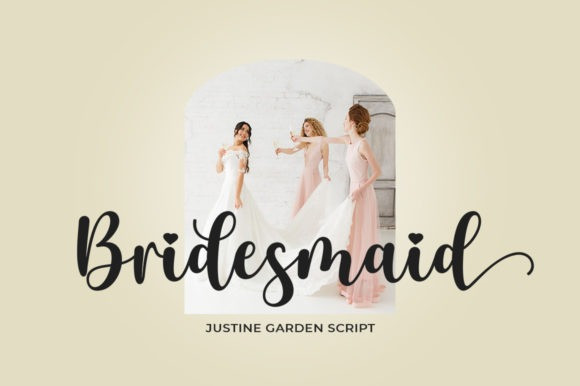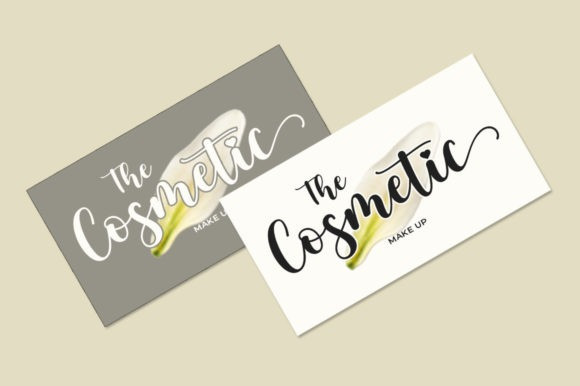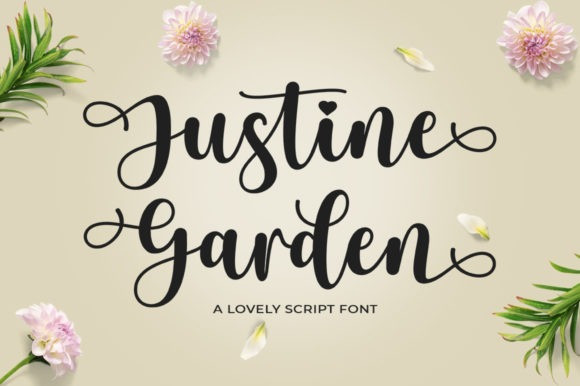
Justine Garden Font
Justine Garden Font is a delicate, elegant and flowing handwritten font. It has beautiful and well balanced characters and as a result, it matches a wide pool of designs. This font is PUA encoded which means you can access all of the glyphs and swashes with ease!